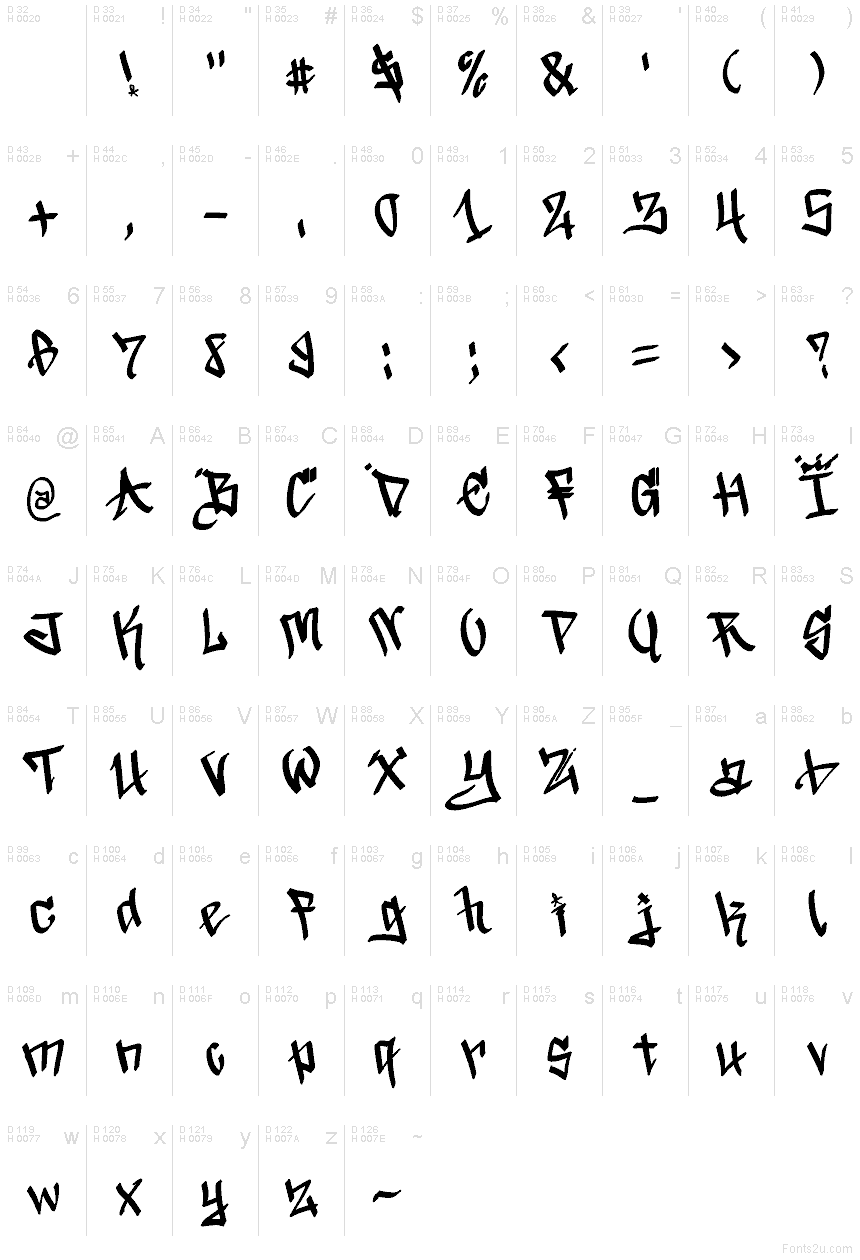
Gang
Gang font by Harit Rohitasoon is a free graffiti font. It hits with thick, inky strokes, tilted forms, and quick tag-style flicks that feel like they were pulled straight from a fat marker. The letters lean and lunge, stacking tight to create a gritty rhythm that reads loud even at a glance—raw, energetic, and unmistakably street.
Using Gang, you’ll nail streetwear logos, album covers, event flyers, skate zines, sticker packs, and YouTube thumbnails. This free font’s chunky shapes and swooping endings punch through busy backgrounds and hold their own over photos or textures. Pair it with a clean, light sans for captions, and set Gang big with a touch of extra tracking to let the strokes breathe.